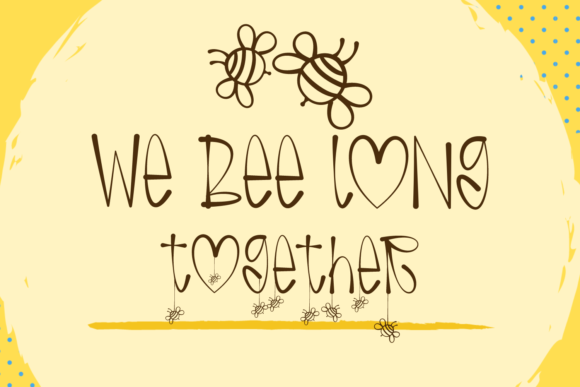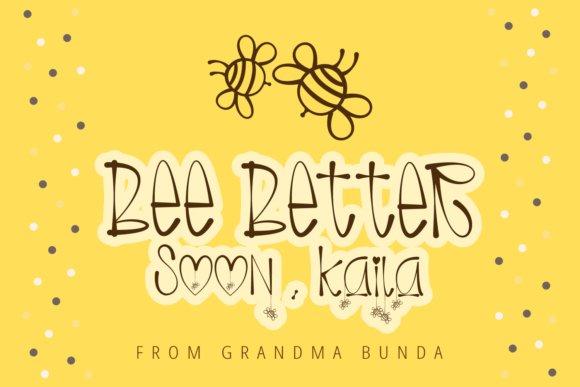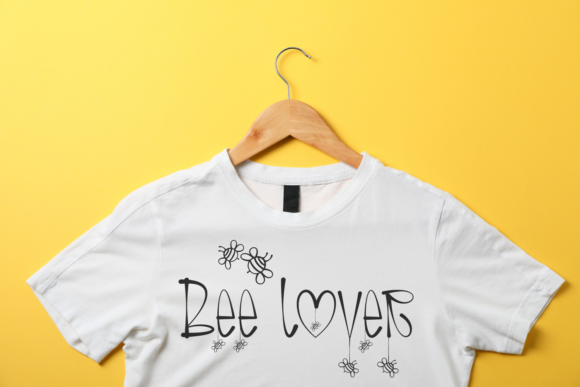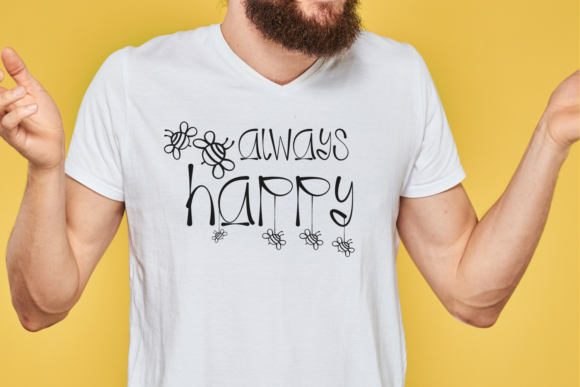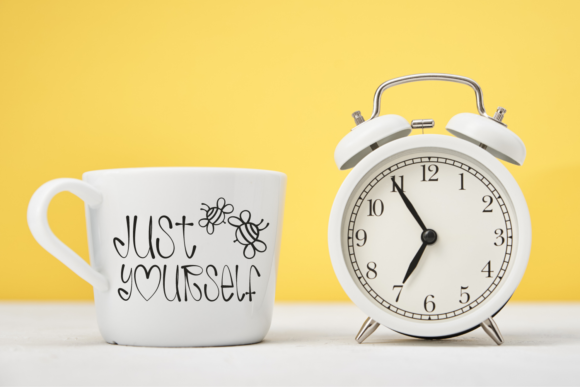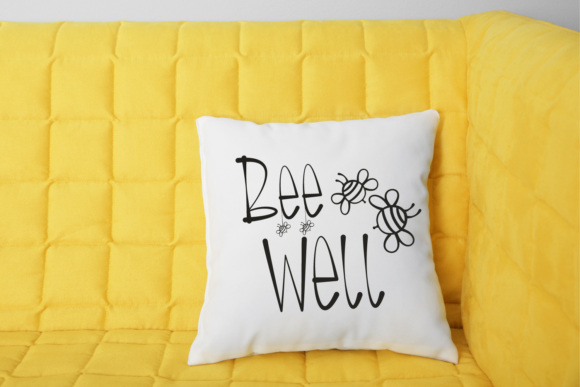
Remember that moment when you were brainstorming ideas for a new project, and suddenly, a burst of creativity struck you? You envisioned a colorful, playful design that would put a smile on everyone’s face. For many designers, that’s the perfect moment to introduce the Bee Darling Font – a quirky, fun, and jolly handwritten font that’s sure to bring your creation to life.
Bee Darling Font is designed to add a lovable touch to your designs, whether it’s for a cartoon, children’s game, or any other project that requires a dash of personality. Its unique, handwritten style makes it an excellent choice for designers looking to create engaging and memorable visual content.
With the Bee Darling Font, you’ll be able to add a touch of warmth and friendliness to your designs, making it an invaluable asset for any creative project.
Bee Darling Font Key Features
- Character Set: This font features a comprehensive character set, including uppercase and lowercase letters, numerals, punctuation marks, and special characters, making it suitable for various design projects.
- Unique Characteristics: Bee Darling Font boasts a playful, whimsical design with intricate details and ornate flourishes, making it perfect for creating eye-catching and memorable designs.
- Font Weight and Style: This font features a single weight and style, offering a consistent look and feel throughout the design.
Bee Darling Font Review
First of all, I’d like to say that I was really excited to dive into the Bee Darling Font. As a designer, I love exploring new typography and seeing what unique features each font has to offer. ✨ One of the things that immediately caught my eye was the playful and whimsical feel of this font. It’s perfect for projects that need a touch of warmth and personality.
The Bee Darling Font is incredibly versatile and can be used for a wide range of applications, from children’s books to branding and advertising. ✨ I also appreciate how the font is fully editable, making it easy to customize and tailor to your specific needs.
However, I do have a few concerns about this font. ⚠️ Firstly, the Bee Darling Font may not be suitable for formal or professional projects, as its playful nature may come across as unprofessional. Additionally, some of the characters and symbols may be difficult to read at small font sizes, which could be a limitation for certain applications.
Overall, I think the Bee Darling Font is a great addition to any designer’s toolkit. While it may have some limitations, its unique charm and versatility make it a valuable asset for any project that needs a touch of personality.
Pros:
- Playful and whimsical feel
- Highly versatile
- Fully editable
Cons:
- May not be suitable for formal or professional projects
- Some characters and symbols may be difficult to read at small font sizes
Bee Darling Font: A Practical Application Guide
Tips for Getting the Most Out of Bee Darling Font
For the best results, use Bee Darling Font in conjunction with playful graphics and colors. Consider using it for designs related to children’s products, food, or home decor. Experiment with different font sizes and colors to achieve the desired effect.
Bee Darling Font is commonly used for: